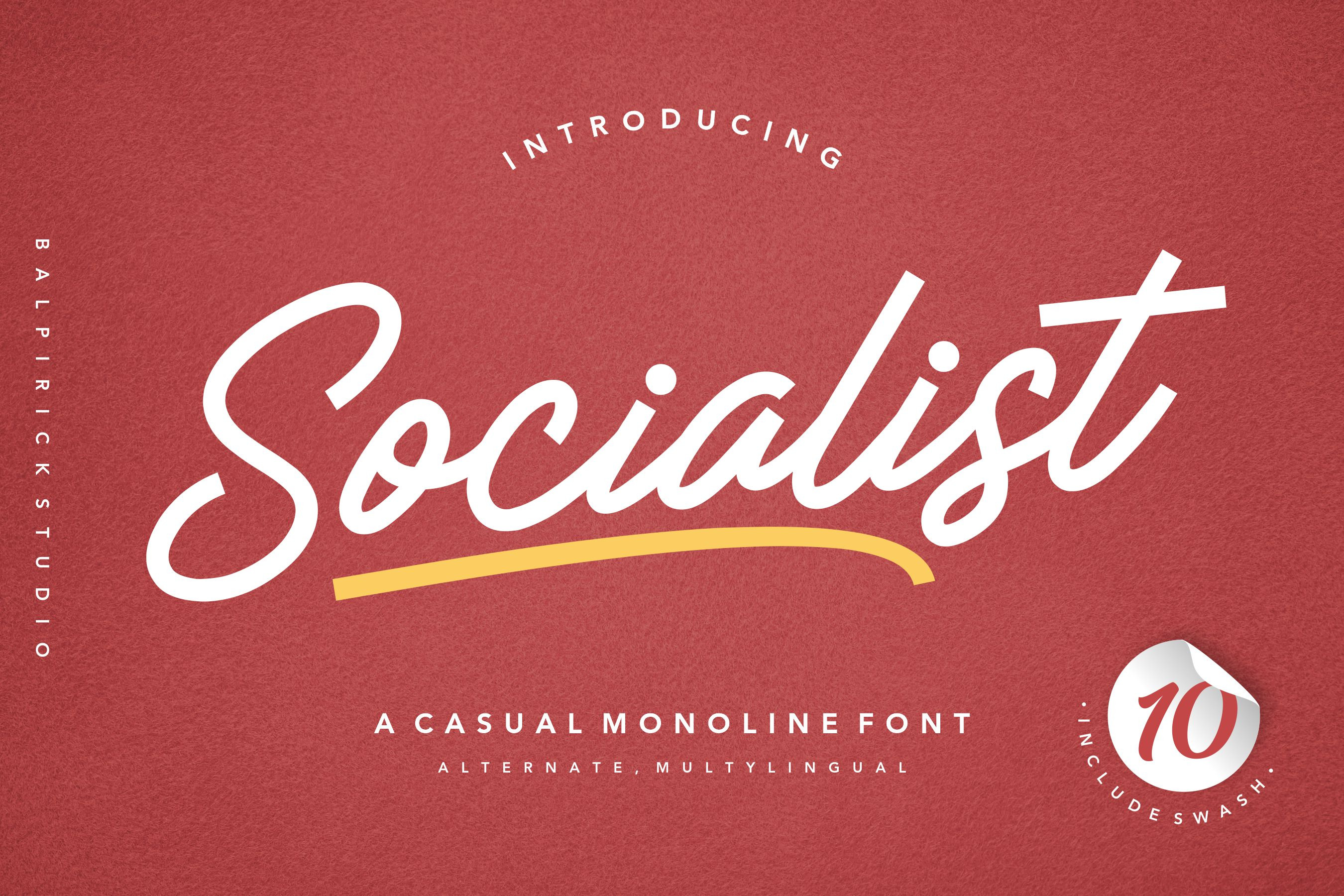
Socialist - Casual Monoline Font
Proudly Present, Socialist Font
Socialist is a gorgeous handwritten font, carefully handcrafted to become a true favorite. Its casual charm makes it appear wonderfully down-to-earth, readable and, ultimately, incredibly versatile. Socialist will look outstanding in any context, whether it’s being used on busy backgrounds or as a standalone headline!